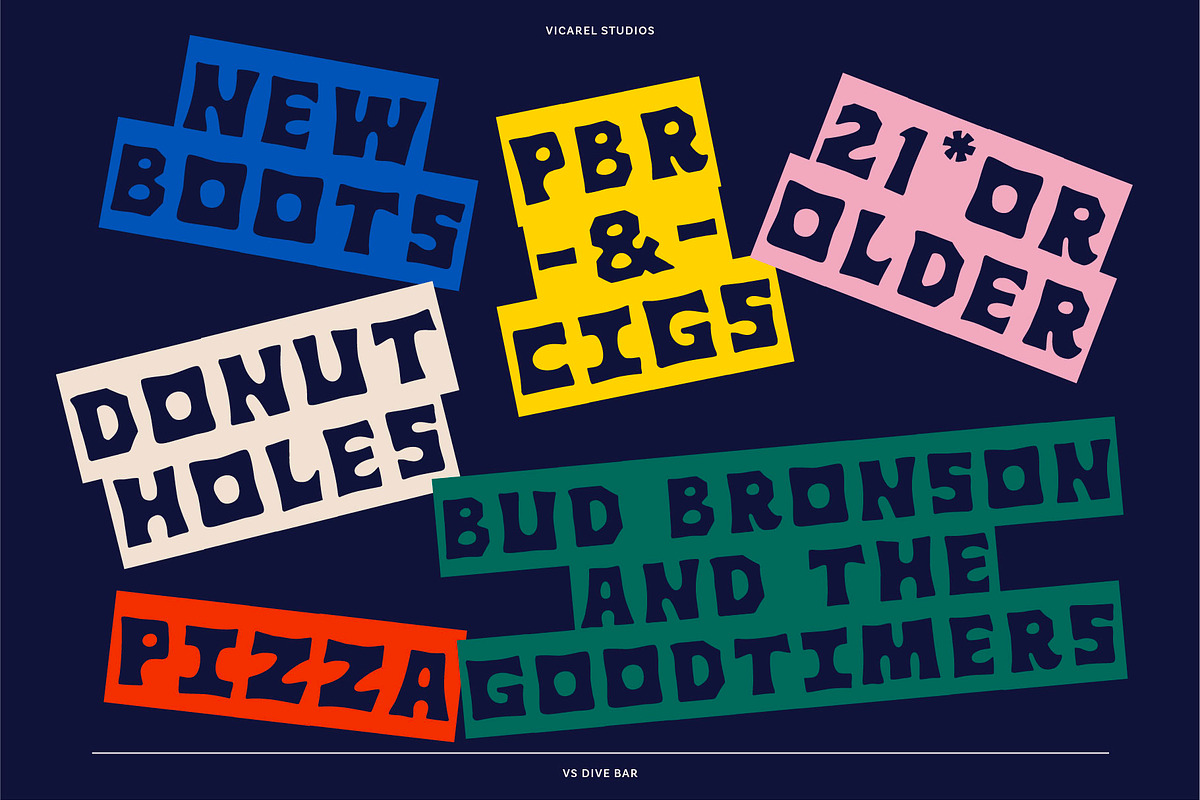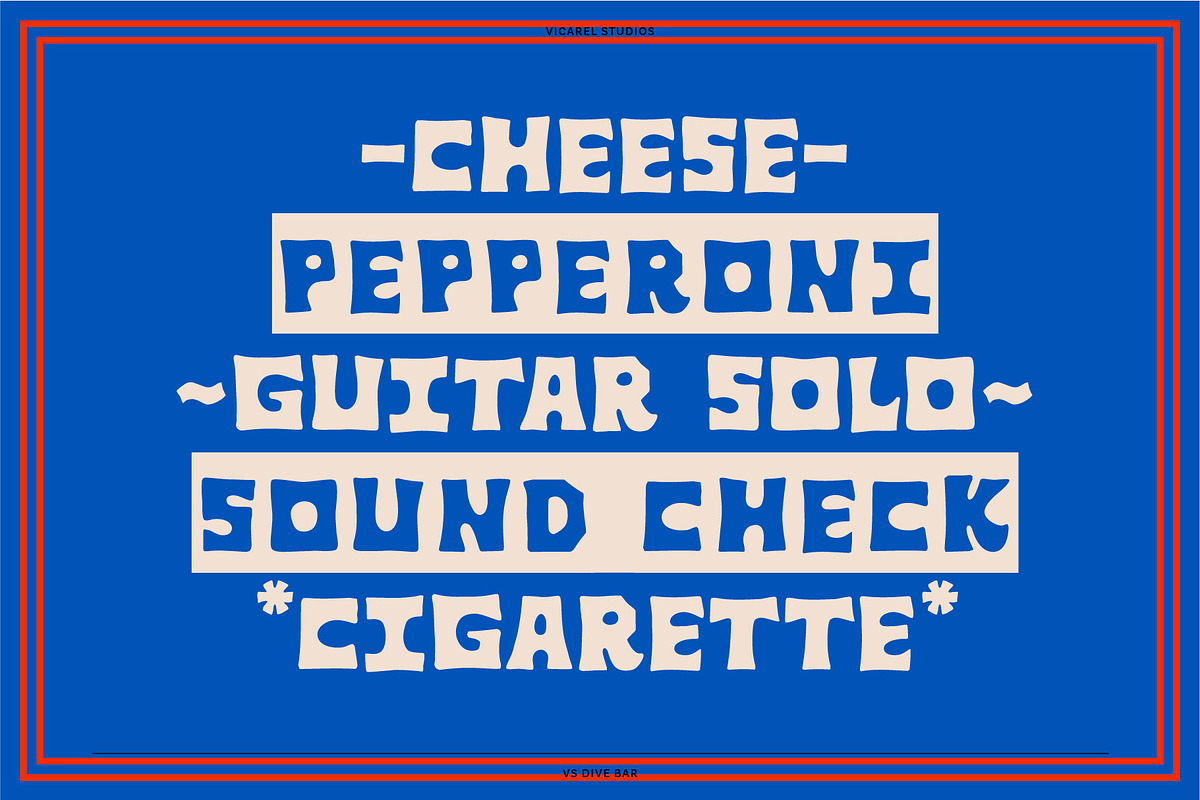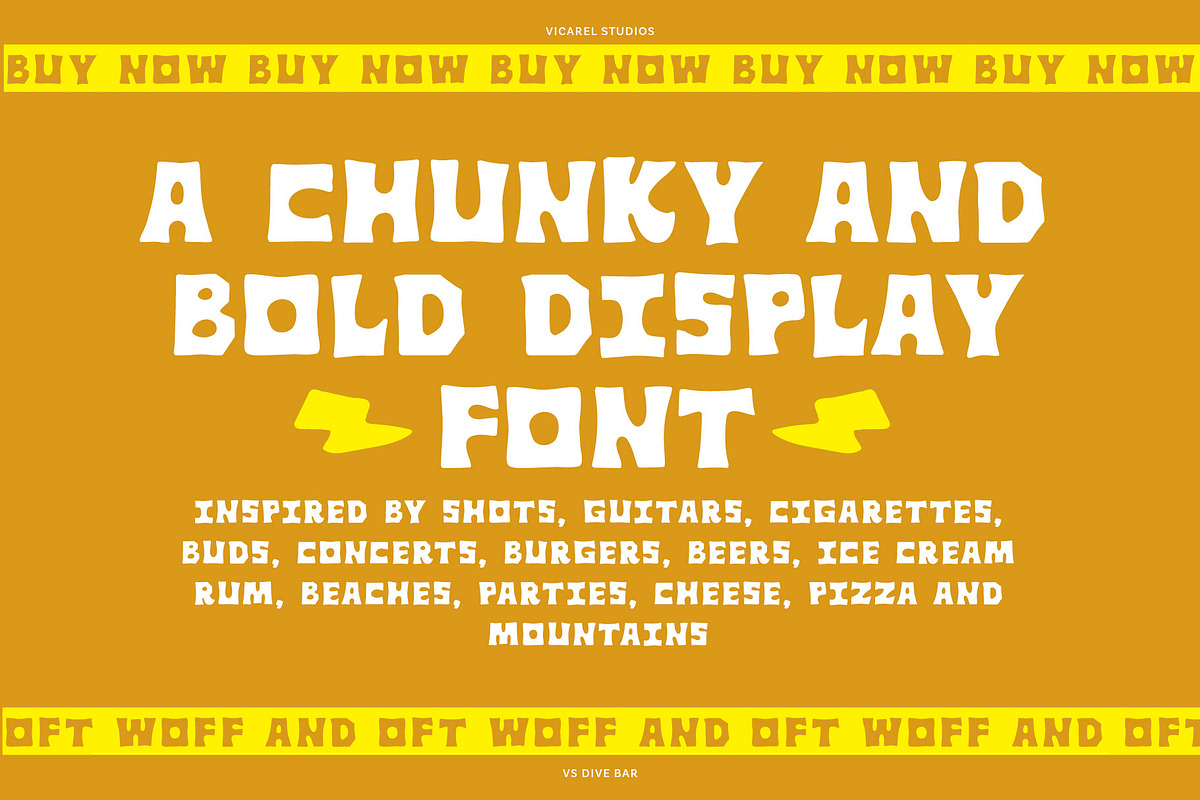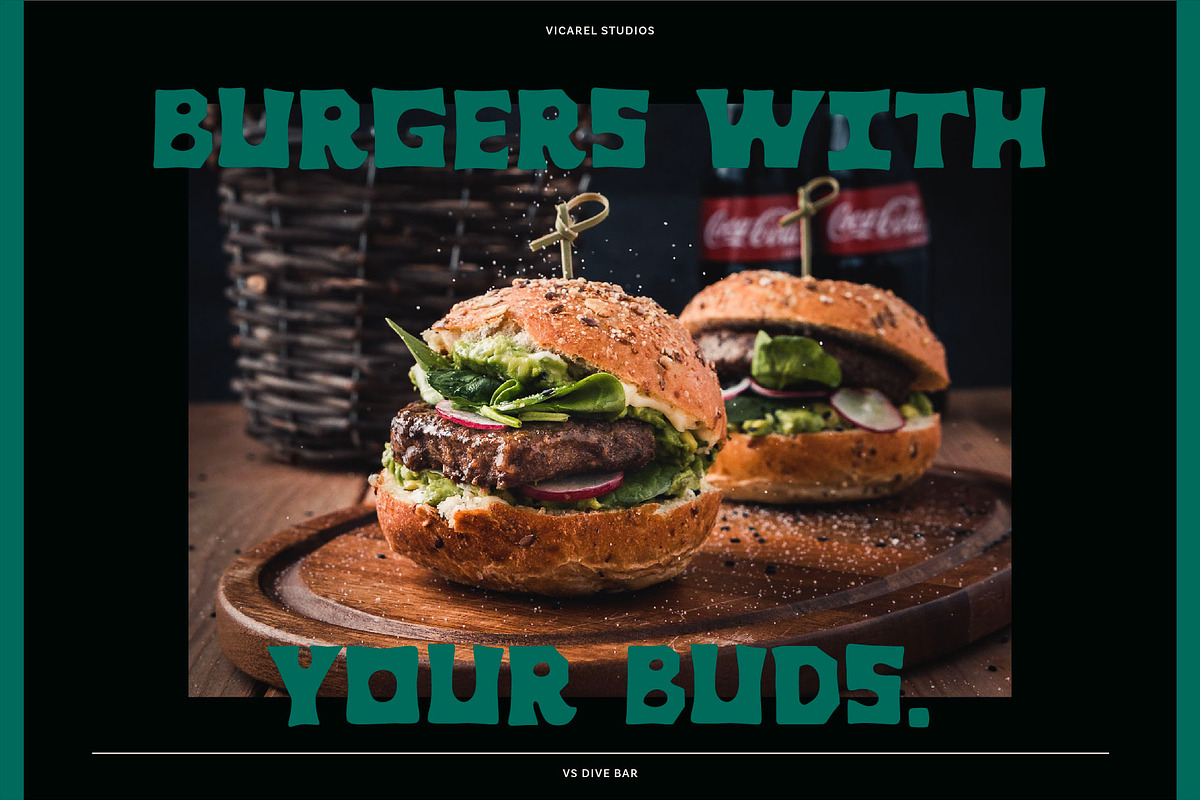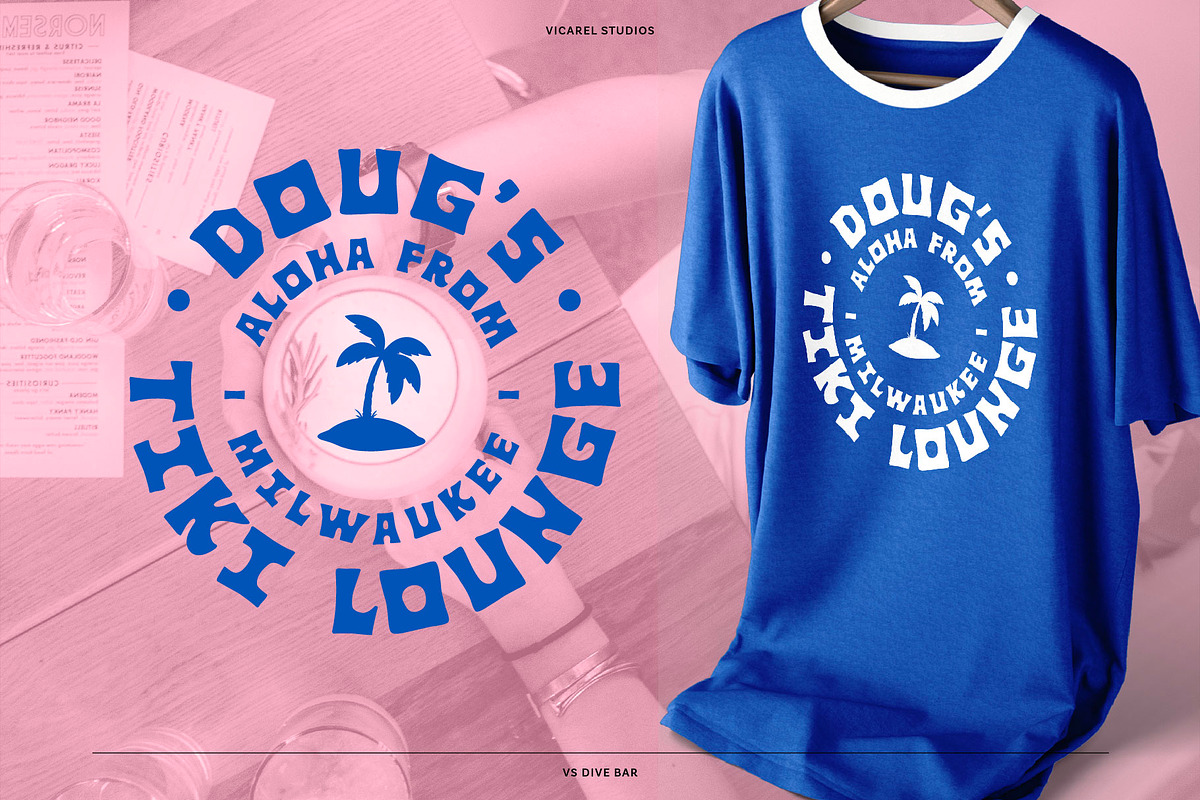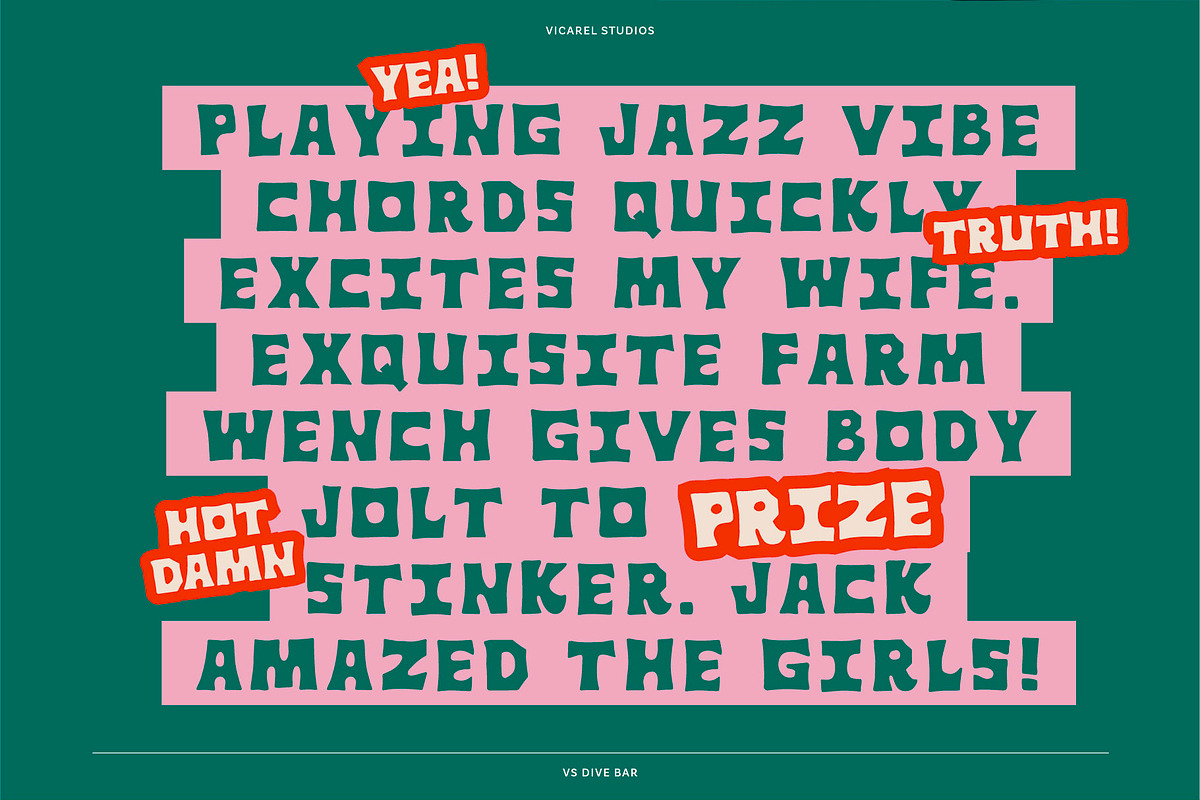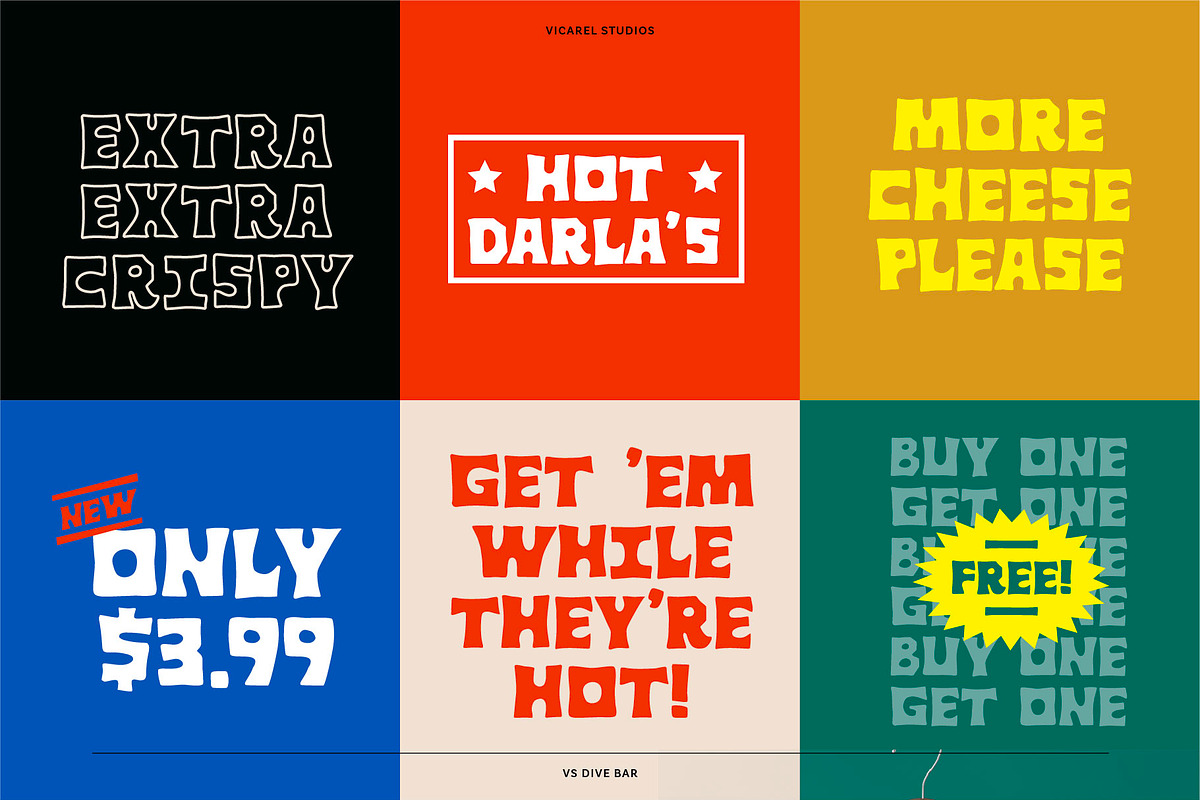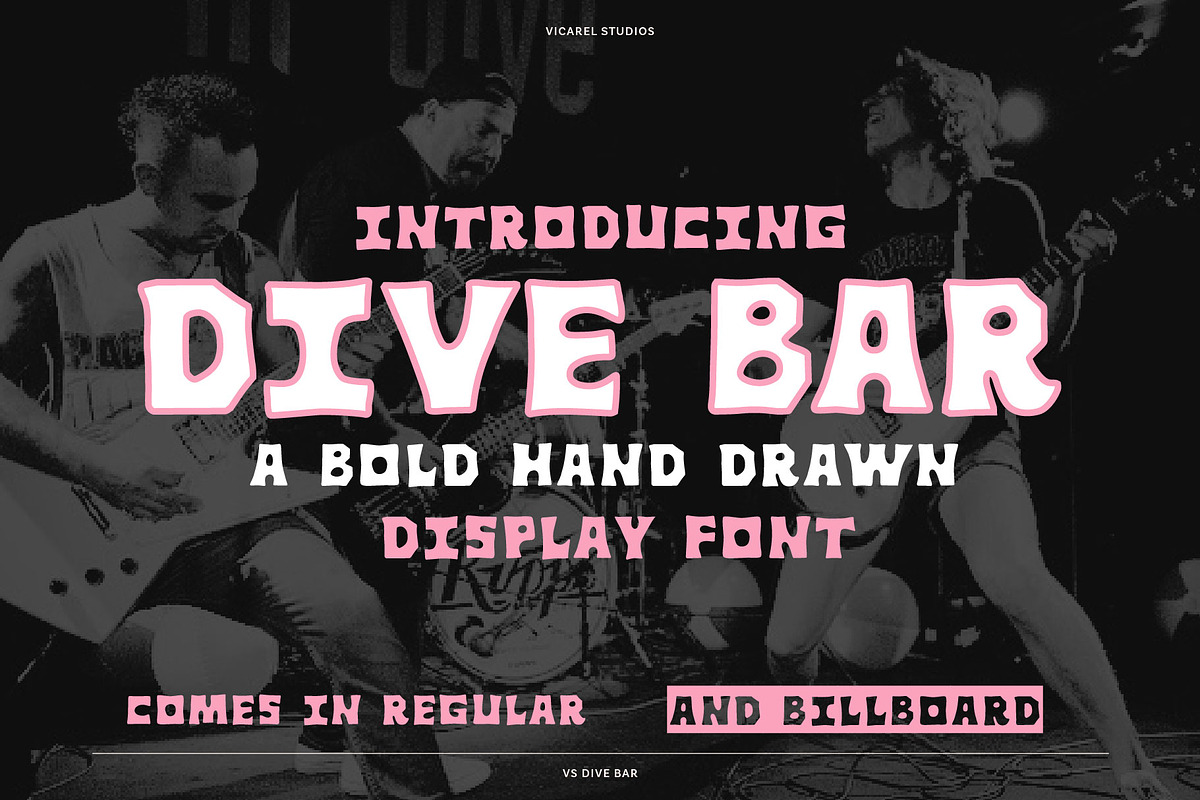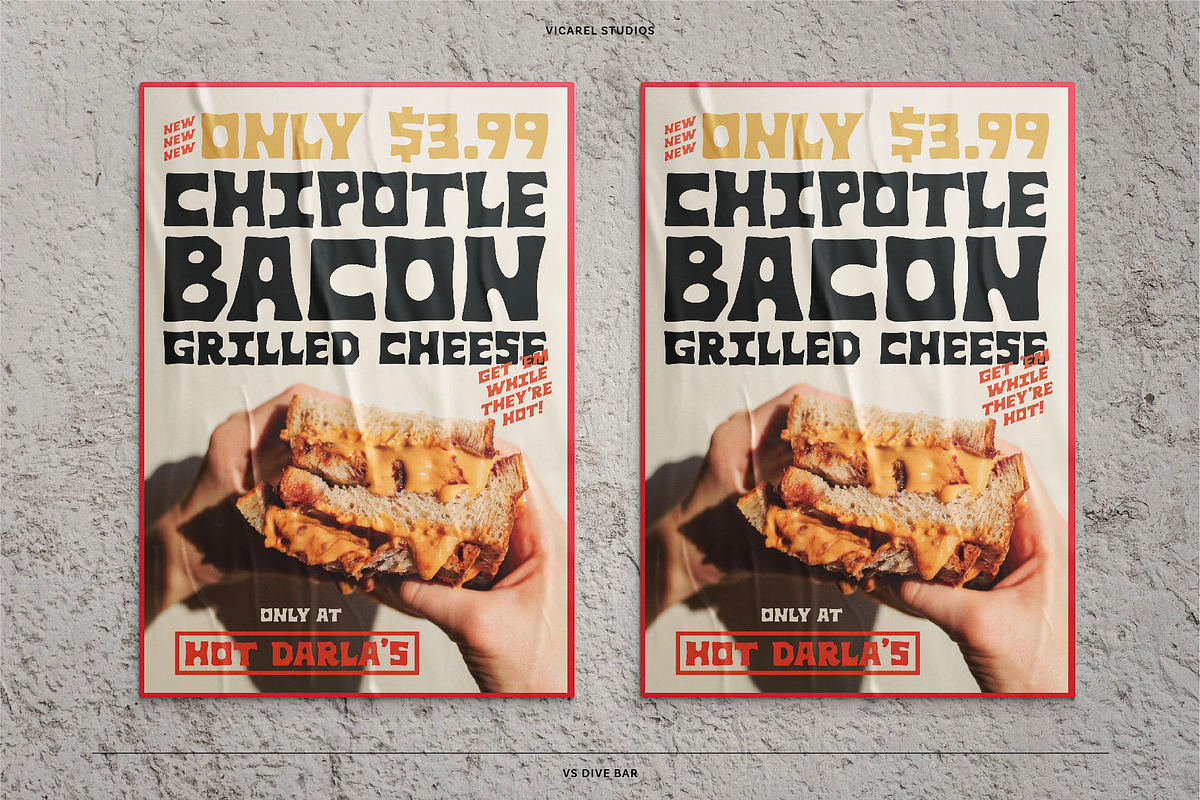
VS Dive Bar // Display Font
Dive Bar, an all caps display font with digits and punctuation, made by Vicarel Studios
Styles -Regular -Billboard
Inspired by whiskey shots, guitars, cigarettes, buds, concerts, burgers, beers, ice cream, rum, beaches, parties, cheese, pizza and mountains, our newest font, Dive Bar, is a versatile display font that comes in two styles, regular and billboard, and allows you to have fun with your next design project.
Perfect for styling logotypes in seconds, as well as various labels, invitations, stationary, branding, and apparel for liquor brands, coffee shops, lifestyle brands, cannabis dispensaries and so much more.
While a little rough around the edges, this distorted blocky typeface maintains an approachability that allows it to fit in a multitude of spaces.